10 Modern Script Fonts for Weddings, Branding & Creative Projects
Typography has always been more than just letters for me — it’s mood, personality, and the feeling a design leaves behind. A well-chosen script font can turn a simple layout into something elegant, emotional, and unforgettable.
In this collection, I gathered 10 modern script fonts that I genuinely love using in creative projects — from wedding invitations and luxury branding to social media graphics and packaging. Some feel soft and romantic, others bold and expressive, but all of them add that handcrafted touch digital designs often miss.
If you’re looking for fonts that bring warmth, style, and character into your work, these picks might become your new favorites.
Maddison Script Font
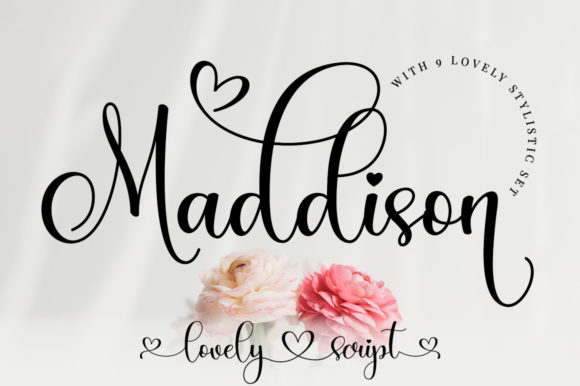
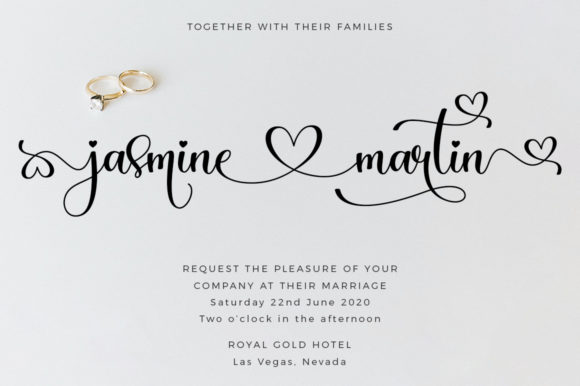
- I love using Maddison when a design needs a soft and elegant personality. This romantic script font brings a natural handwritten feel that works beautifully for wedding invitations, feminine branding, logos, and social media graphics. Its flowing calligraphy style and stylish swashes make every project feel modern, graceful, and professionally designed.
Simple Handwriting Font
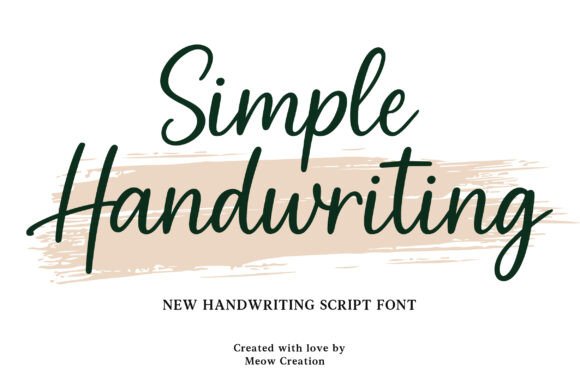
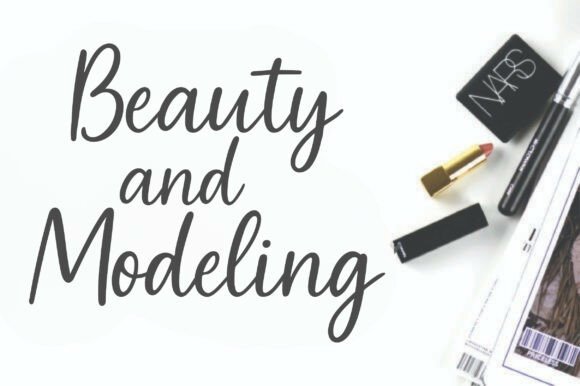
I often use Simple Handwriting when I want my designs to feel personal, modern, and effortlessly elegant. This handwritten script font combines clean curves with natural flowing strokes, making it perfect for branding, logos, social media posts, packaging, and stylish signatures. Its authentic handwritten look adds warmth and creativity while staying beautifully readable.
Welcome Script Font
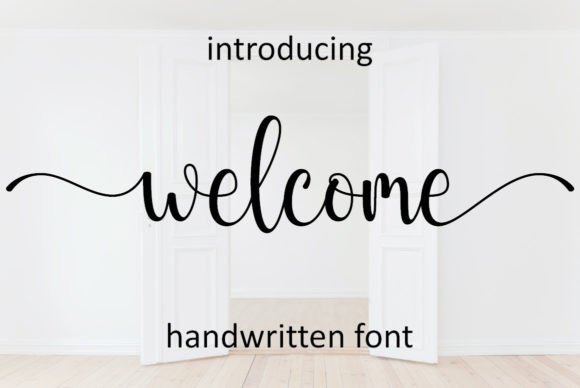
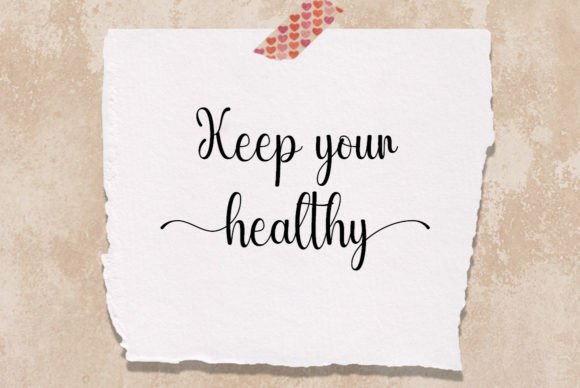
Welcome is one of my favorite elegant handwritten fonts for creating soft and stylish designs. I love using it for wedding invitations, branding, logos, greeting cards, and social media graphics because it adds a graceful personal touch instantly. Its smooth handwritten style and beautiful alternates make every design feel modern, romantic, and effortlessly premium.
Hey Baby Script Font
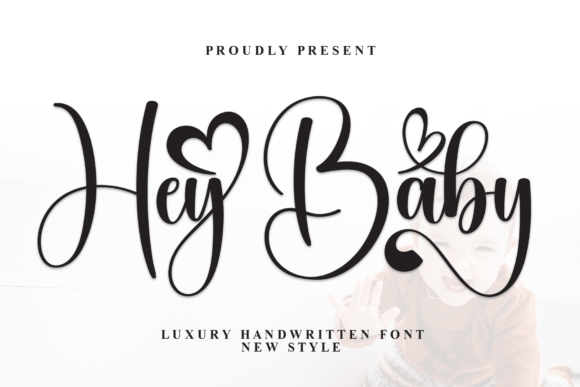
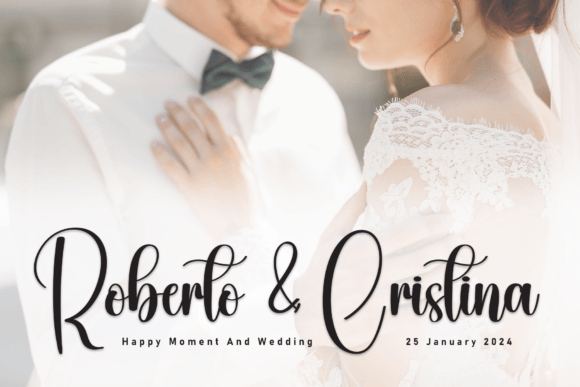
Hey Baby is a beautiful flowing handwritten font that I love using for elegant and creative projects. Its graceful calligraphy style adds a timeless and sophisticated feel to wedding invitations, feminine branding, logos, packaging, and social media designs. The smooth handwritten strokes and expressive details make every layout feel stylish, personal, and effortlessly refined.
Wintersnow Script Font
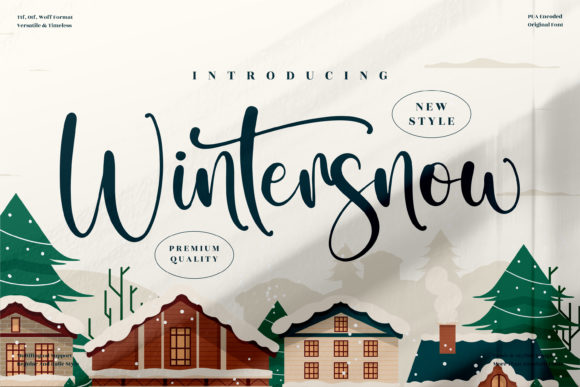
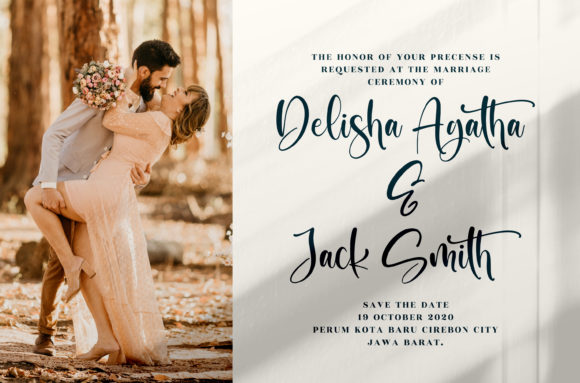
Wintersnow is a flowing handwritten font that instantly brings elegance and charm into any design. I enjoy using it for wedding invitations, luxury branding, logos, packaging, and creative social media content because of its timeless handwritten style. Its smooth flowing letters create a soft and sophisticated look that makes every project feel unique, modern, and beautifully crafted.
Disney Script Font
Disney is a delicate handwritten font that adds a playful yet elegant touch to any creative project. I like using it for invitations, branding, food packaging, titles, and social media graphics because its unique handwritten style feels fresh and memorable. The smooth lettering and modern design make every composition look charming, stylish, and full of personality.
Handmade Script Font
Handmade is a sweet and elegant handwritten font that I love using for romantic and stylish designs. Its soft cursive style works beautifully for wedding invitations, branding, logos, greeting cards, fashion lookbooks, and social media graphics. The natural handwritten flow adds a warm and personal touch while keeping every design modern, classy, and effortlessly creative.
Cupcake Script Handmade Duo Font
Cupcake Handmade Duo is a beautiful font pairing that combines a modern sans serif with an elegant script font. I enjoy using this stylish duo for branding, wedding invitations, greeting cards, logos, packaging, and social media designs. The mix of clean lettering and romantic handwritten details creates a balanced, trendy look that makes every project feel creative and professionally designed.
Overthinking Script Font
Overthinking is a delicate handwritten font that instantly adds elegance and personality to any design. I love using it for branding, wedding invitations, logos, social media graphics, and creative packaging because of its balanced and stylish lettering. Its smooth handwritten style feels modern, versatile, and refined, making every project look sophisticated and beautifully crafted.
Ashley Marie Script Font
Ashley Marie is a versatile duo font that combines an elegant script with a clean sans serif, making it one of my favorite choices for modern design work. I love using it for branding, wedding invitations, logos, social media posts, and packaging because it instantly elevates any project. The balance between handwritten charm and structured lettering makes every design feel polished, stylish, and full of personality.
Final Thoughts
I hope these picks inspire you to experiment more with typography and find the perfect style that truly fits your creative vision. The right script font can completely transform a design, making it feel more personal, memorable, and visually compelling.